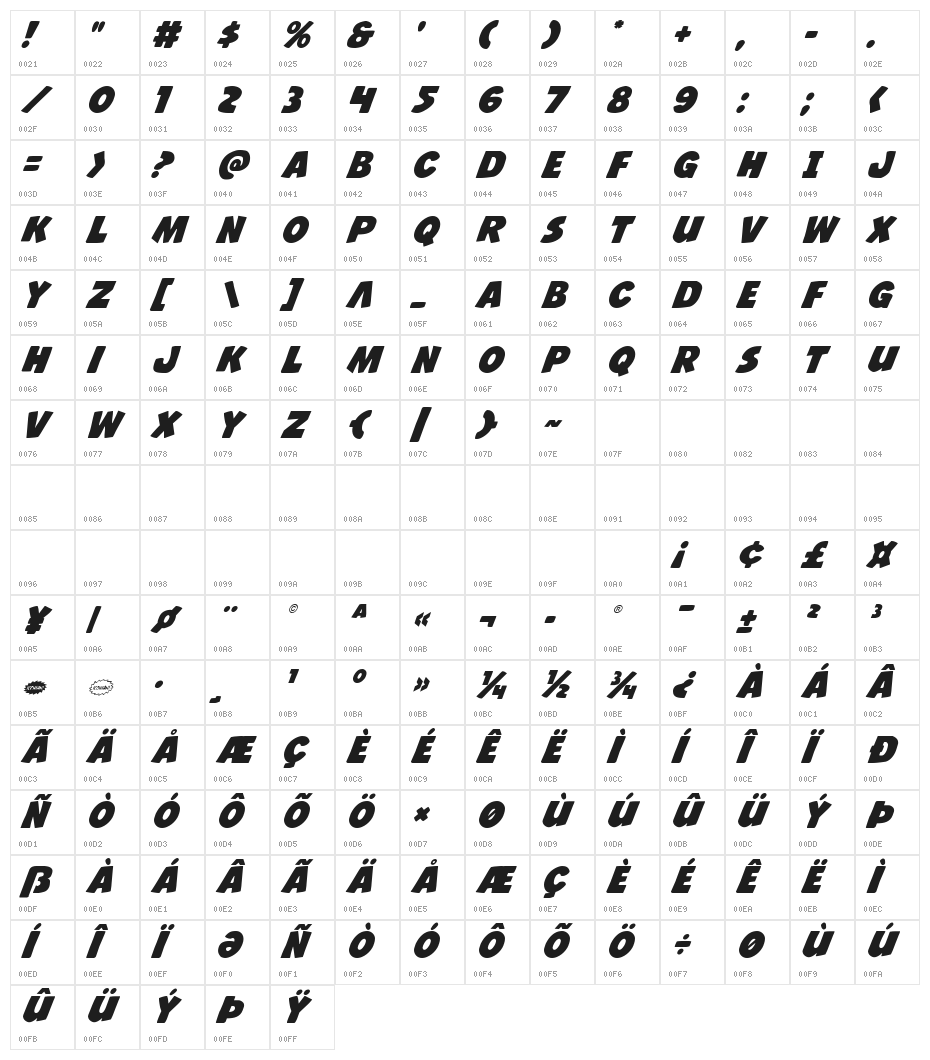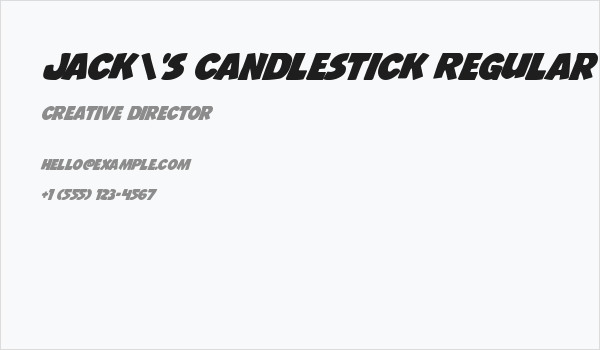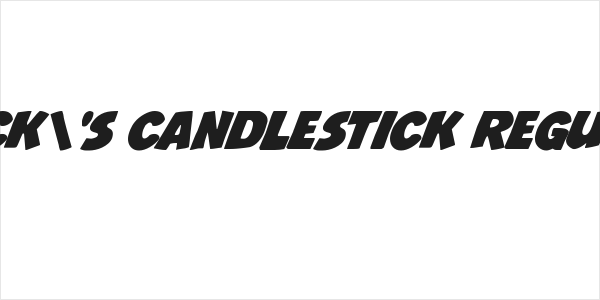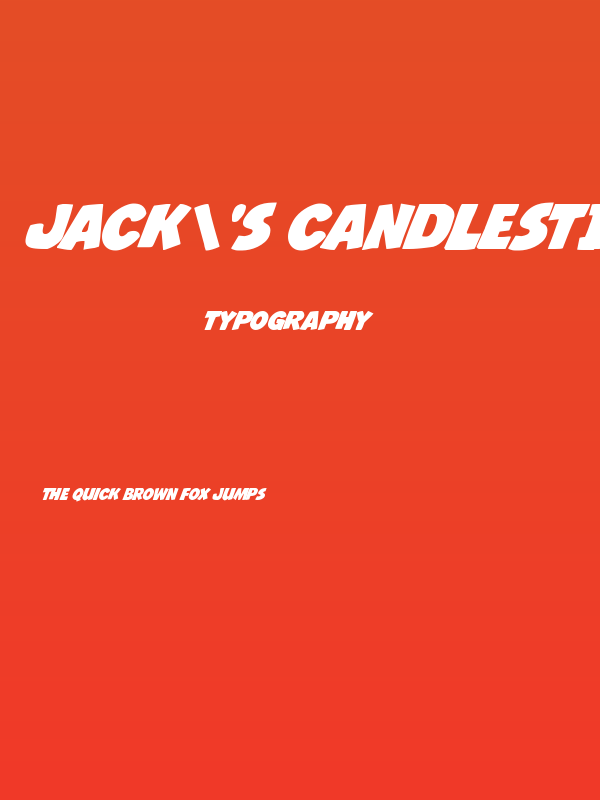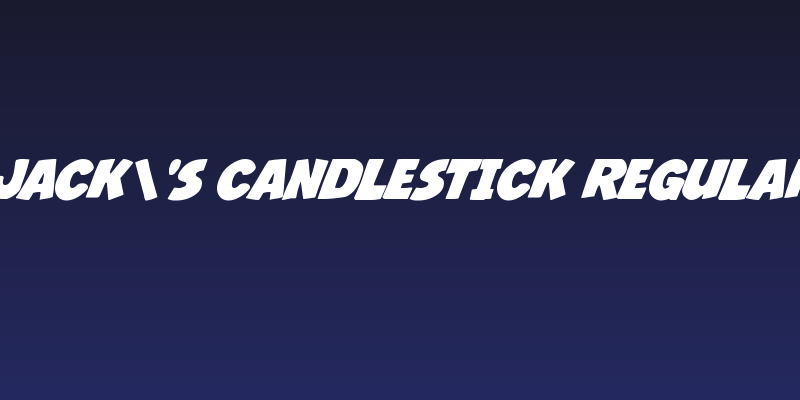
Jack's Candlestick Regular Font
Jack's Candlestick Regular Description
This font features bold, dynamic characters with a strong presence, making it ideal for attention-grabbing designs. The letters are thick and slightly slanted, giving a sense of movement and energy. The rounded edges and smooth curves add a playful touch, while the bold weight ensures readability even at smaller sizes. The numbers and special characters maintain the same bold and energetic style, ensuring consistency across all text elements.
| Proposed Projects | Perfect for posters, headlines, branding, and any project that requires a bold, eye-catching typeface. |